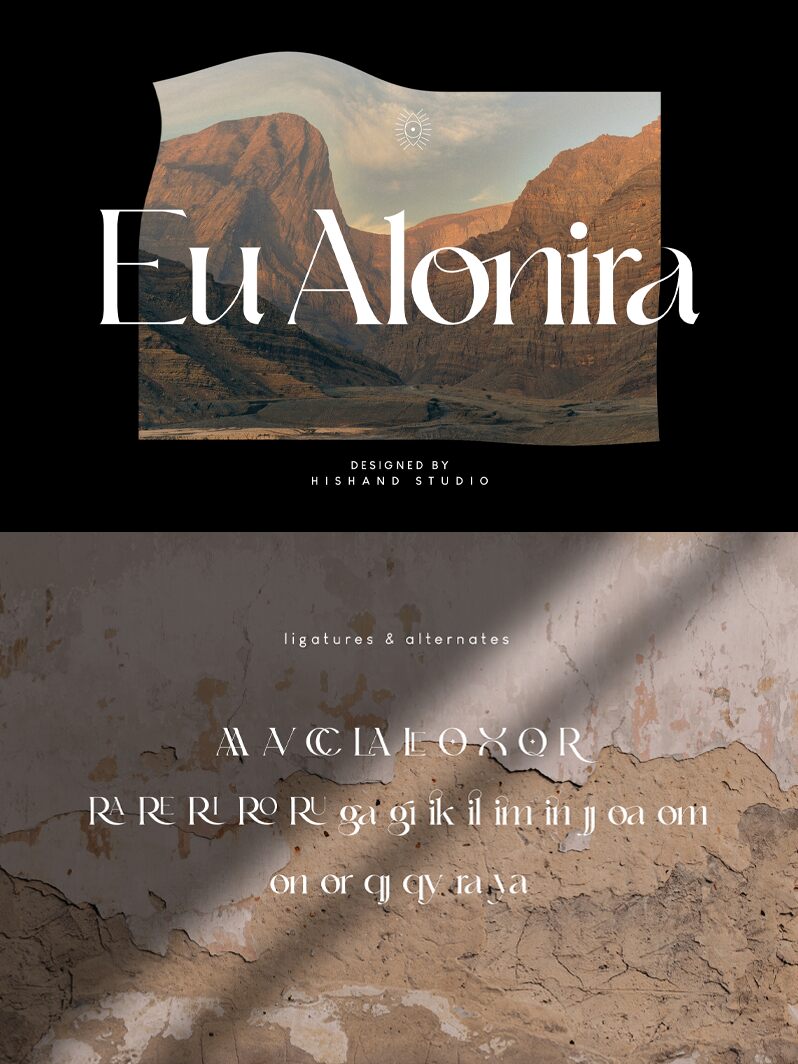
Eu Alonira, a vintage serif font designed by Putu Dody Permana, is perfect for crafting unique projects like logos, posters, and web designs. It also adds an air of elegance to book covers, stationery designs and more.
Eu Alonira